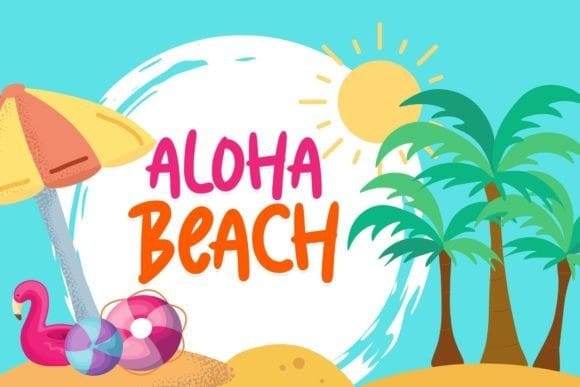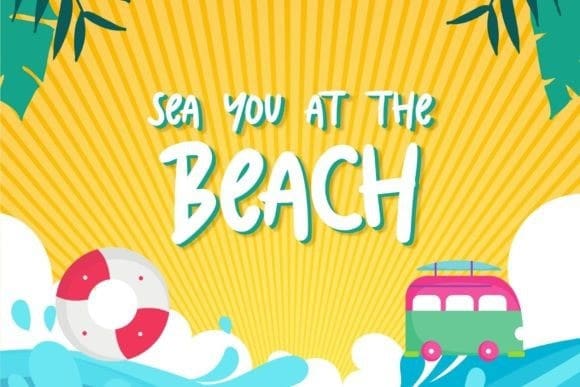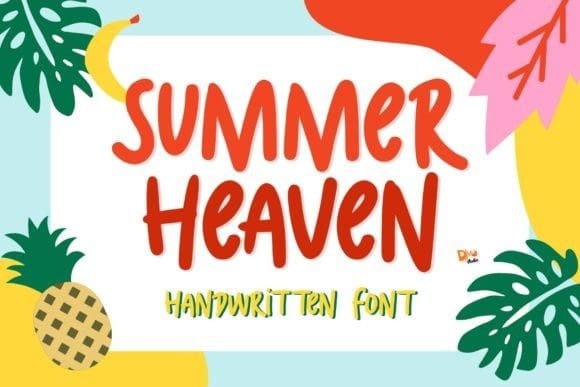
Summer Heaven Font
Summer Heaven Font the fun handwritten font that will bring happiness to you. Great for any purpose, make your own unique and heavenly style for your designs!